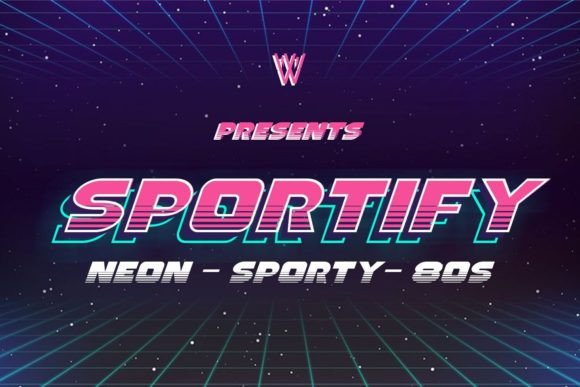
Prepare yourself to be captivated by Sportify Font, an extraordinary display font family that will transform your designs into dynamic masterpieces. Inspired by the essence of athleticism, retro, Neon, 80s, and semi-modern cyberpunk elements, Sportify Font is a breath of fresh air in the world of typography.
Immerse yourself in the world of sports and athleticism with Sportify Font. Its bold strokes and striking presence command attention, evoking a sense of energy and vitality. Whether you're creating sports jerseys, posters, or marketing materials, Sportify Font will elevate your designs to new heights.
The thickness of the font exudes strength and power, making it the perfect choice for showcasing sports products. The deliberate gradation adds a touch of uniqueness and character, creating a font that is both visually appealing and highly functional.
Sportify Font is a versatile performer that adapts seamlessly to any creative endeavor. Its athletic charm makes it an ideal choice for sports-related designs, while its retro and Neon influences add a touch of nostalgia and modernity. Whether you're working on branding, social media graphics, or website designs, Sportify Font will bring your ideas to life with its dynamic personality.
Step into the arena of creativity with Sportify Font and witness the transformation of your designs. Its bold strokes will ignite your imagination and propel your projects to the forefront. Experience the thrill of athleticism and retro aesthetics combined in one remarkable font family.